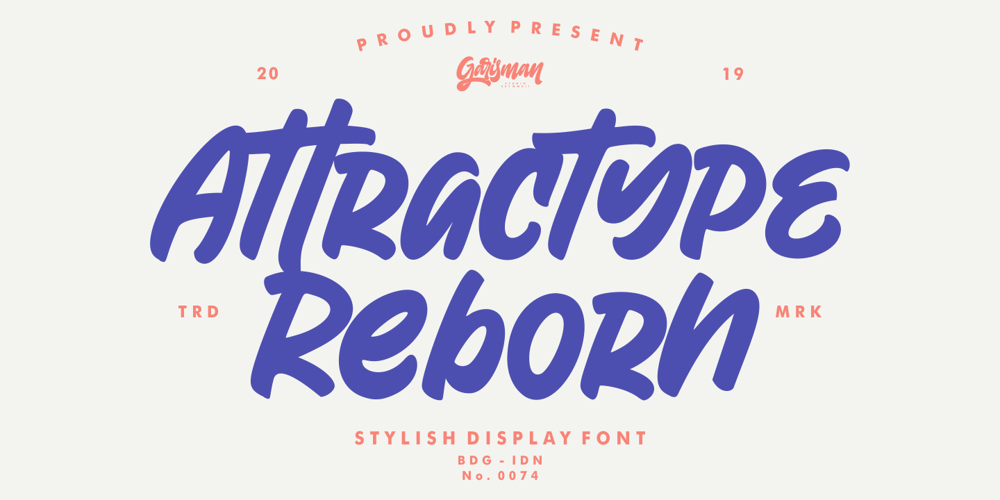
Attractype Reborn
Attractype Reborn font
Attractype Reborn Font Family was designed by Risman Ginarwan and published by Garisman Studio. Attractype Reborn contains 1 styles and family package options. Attractype Reborn combines attractive curves with a fresh urban edge; delivering a stylish script which is guaranteed to add an eye-catching appeal to your logo designs, brand imagery, quotes, product packaging, merchandise & social media posts